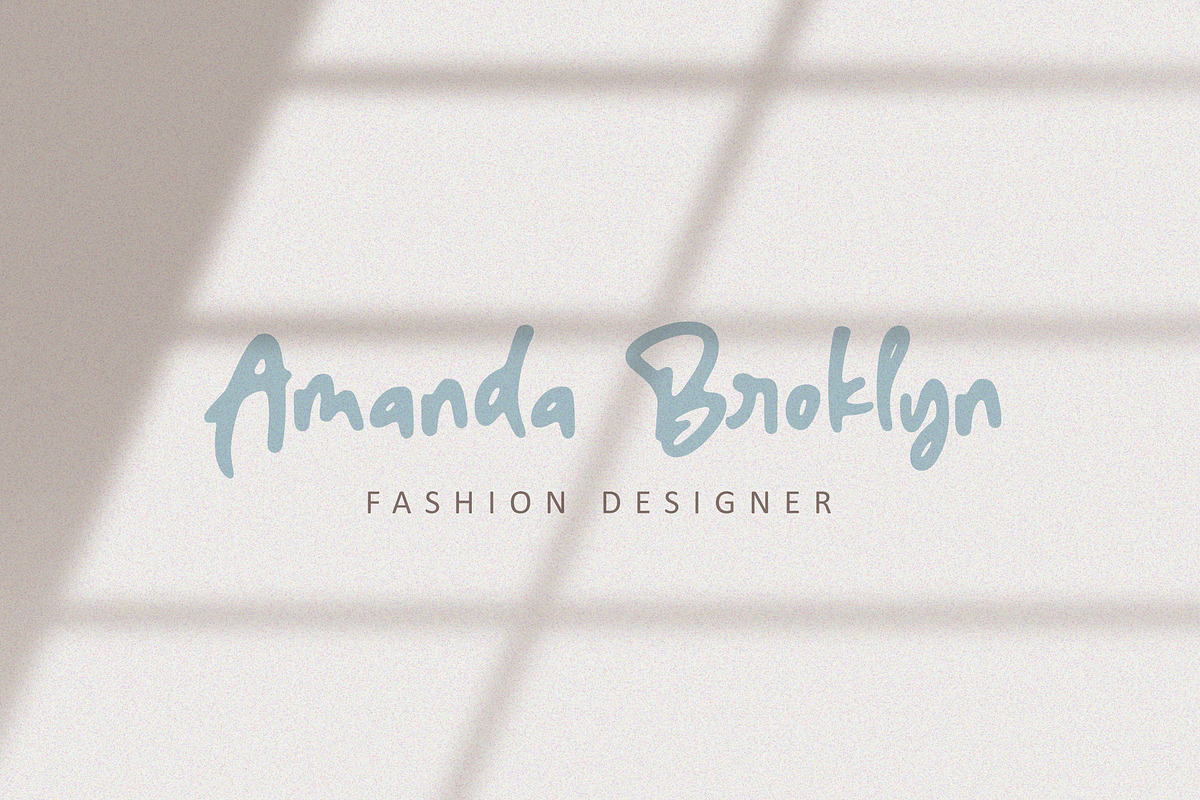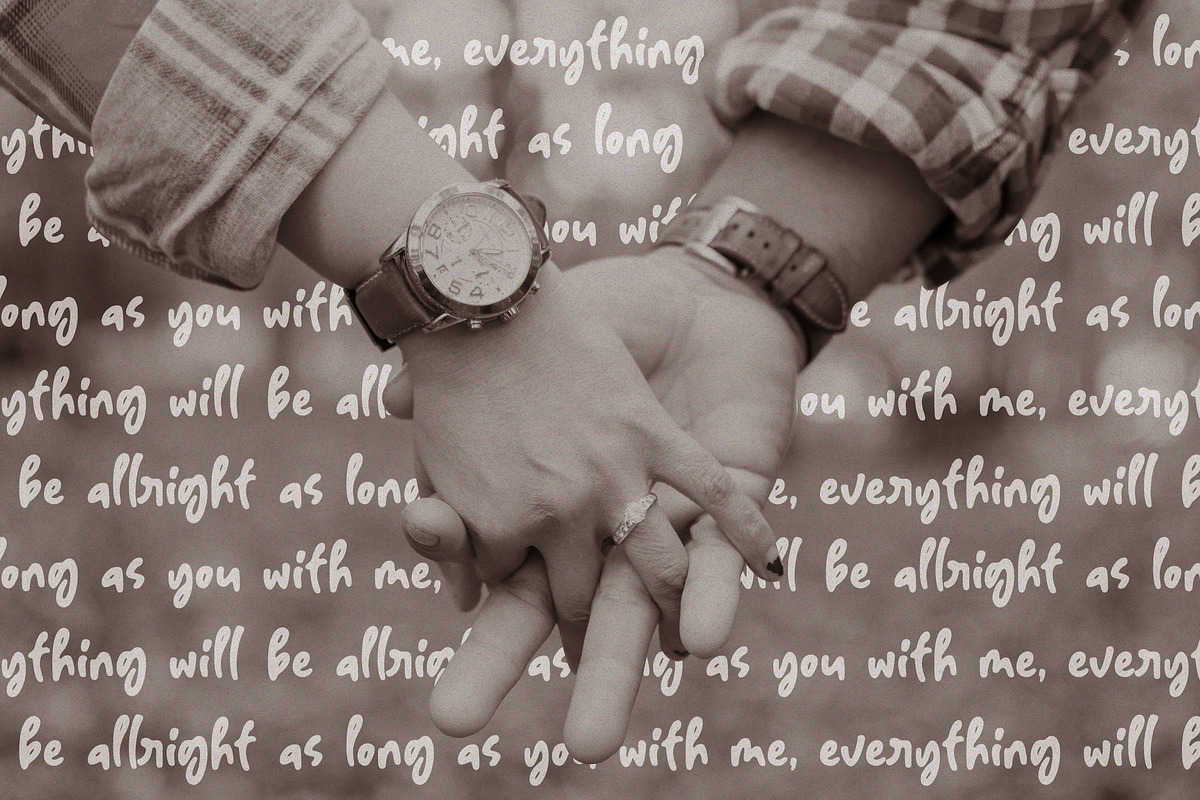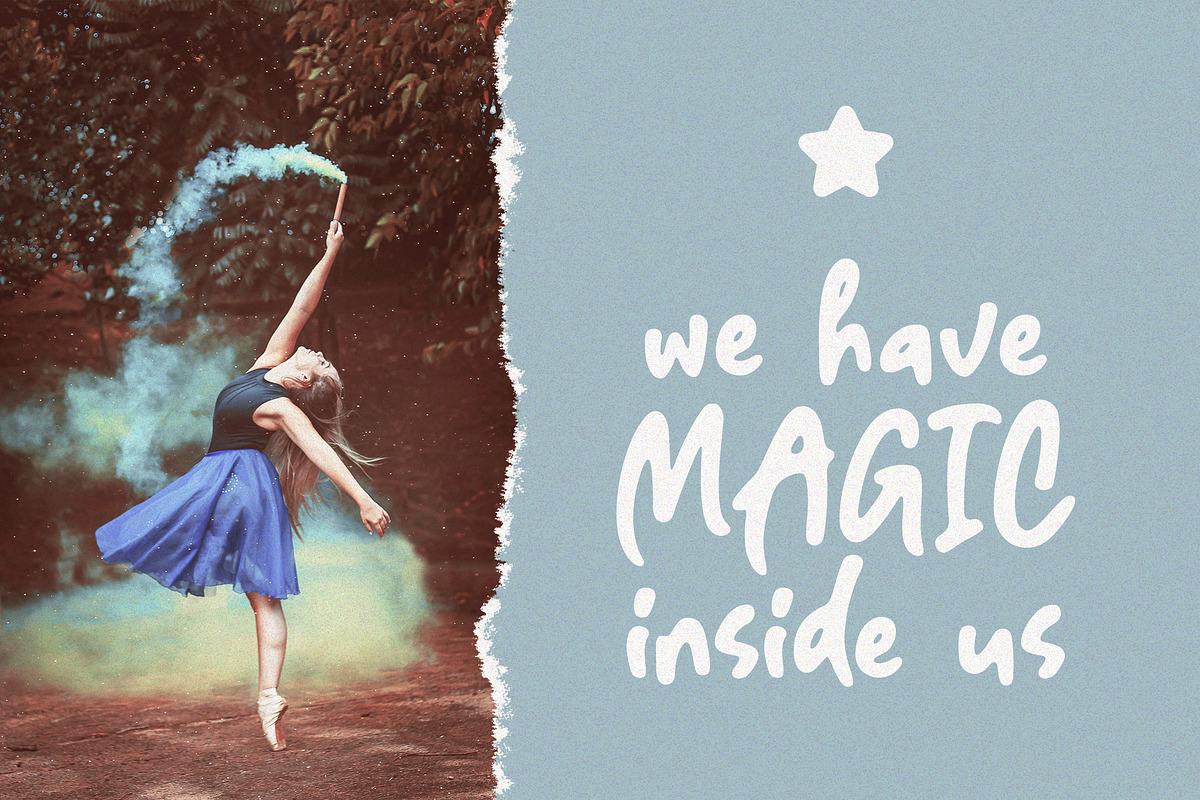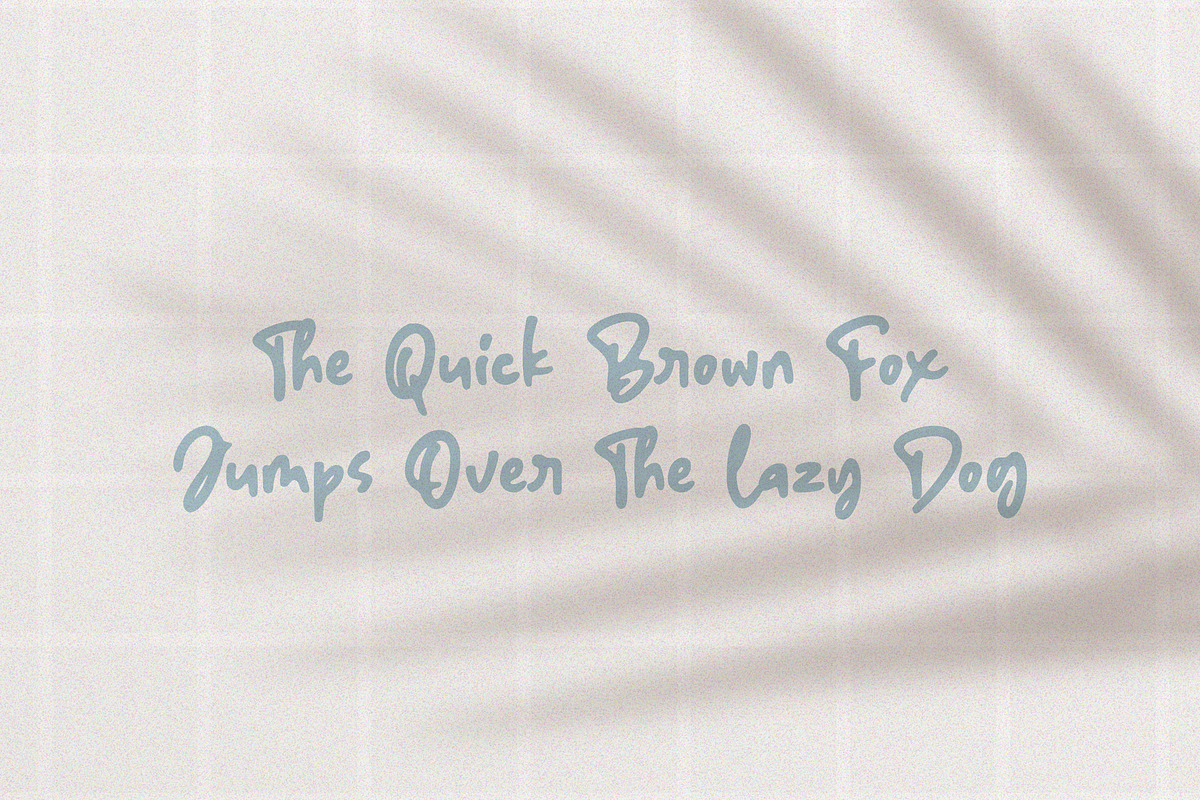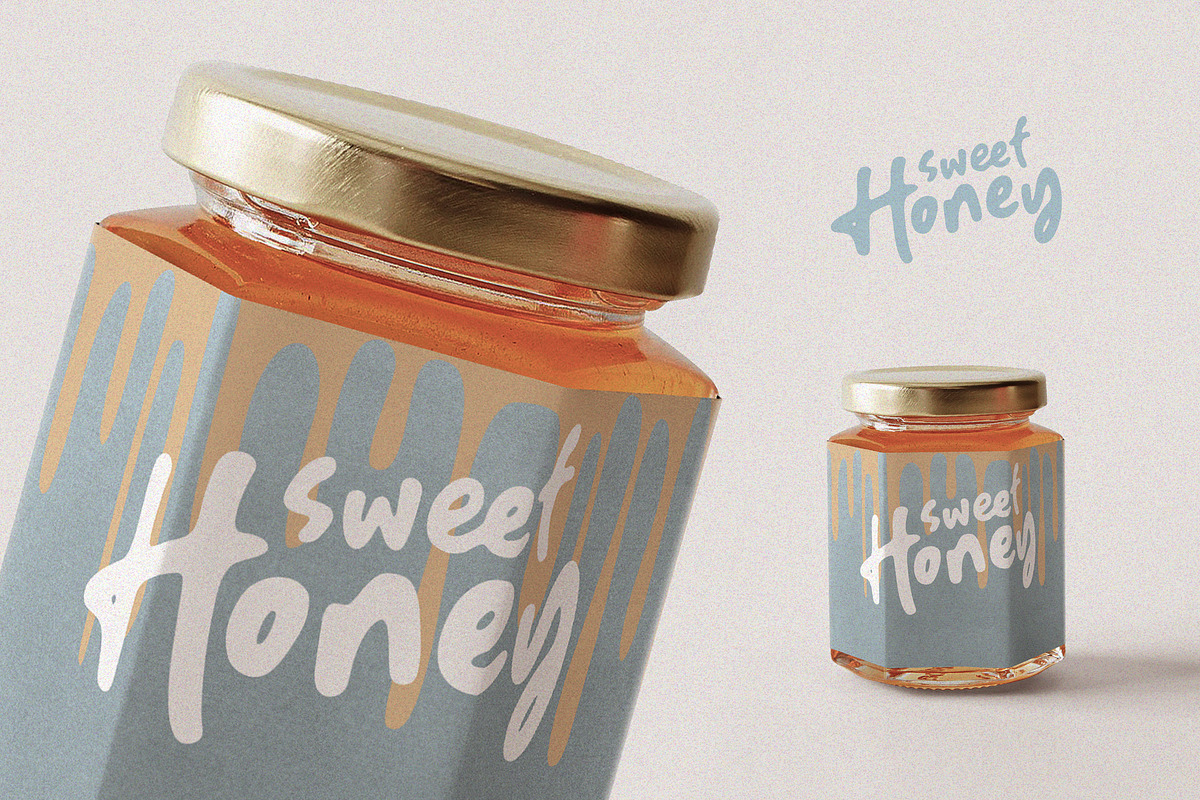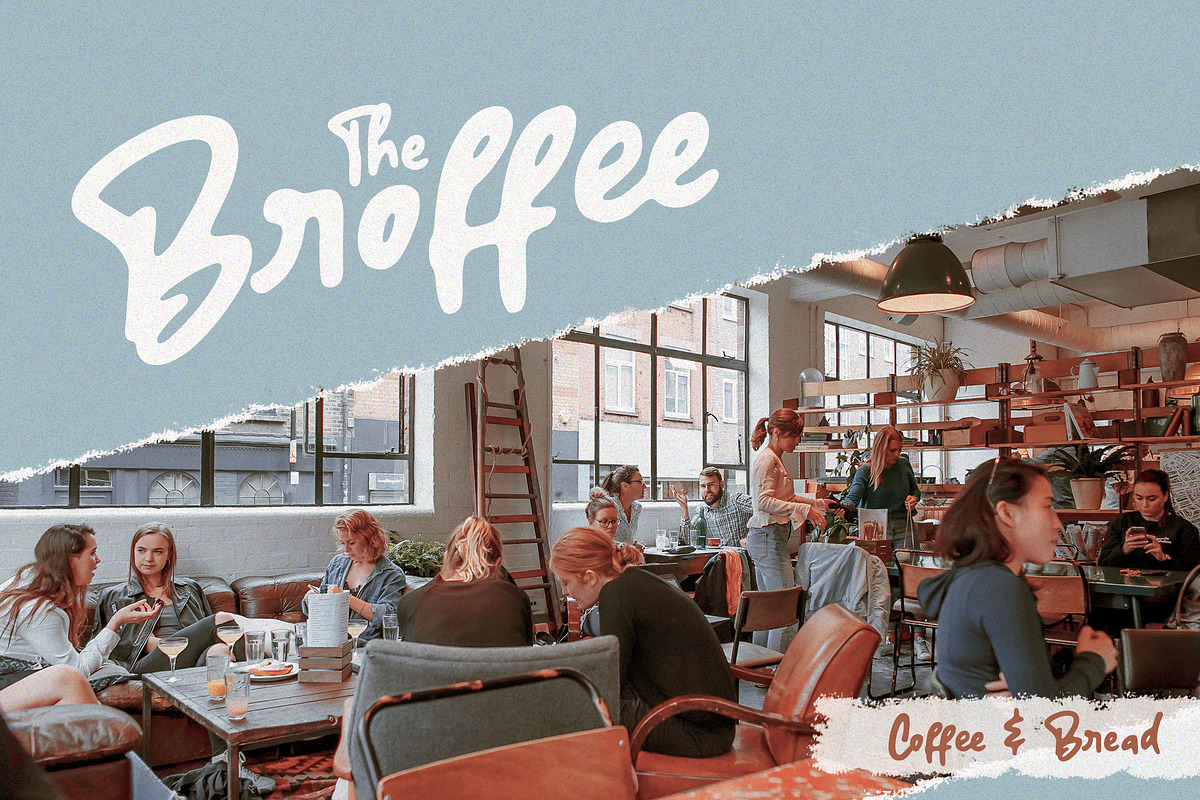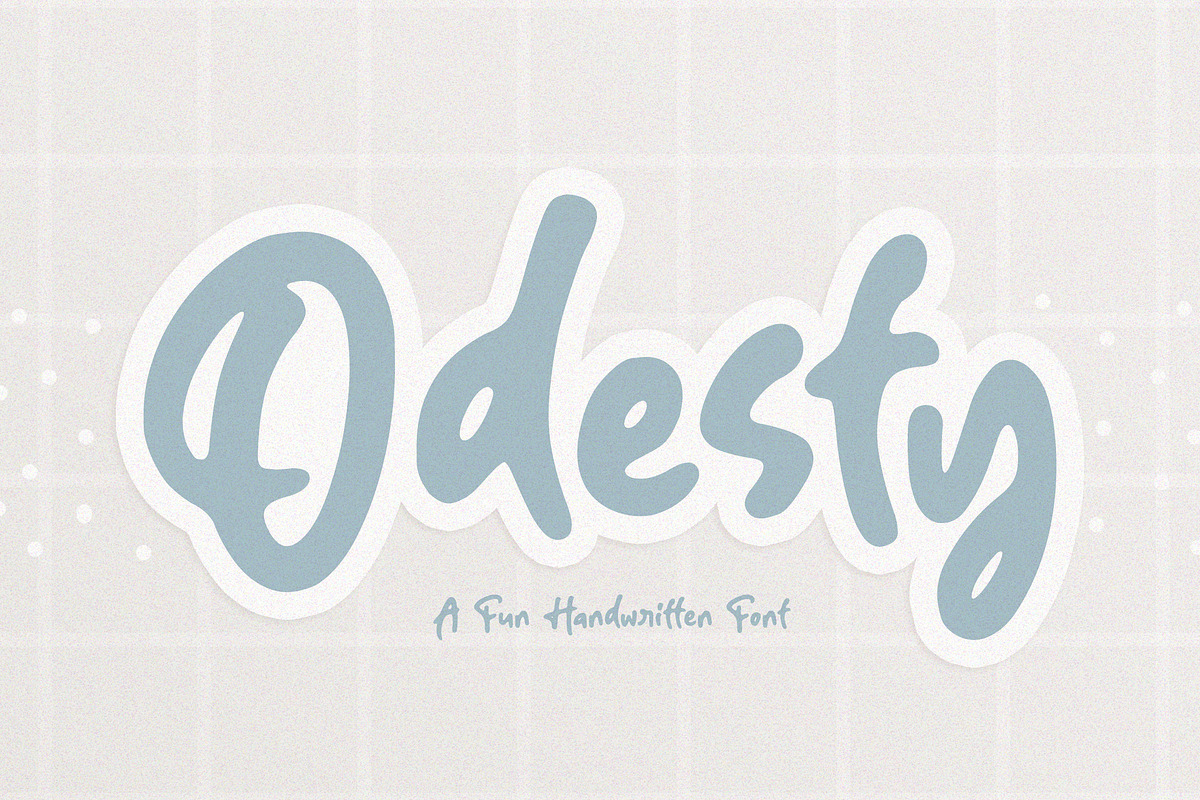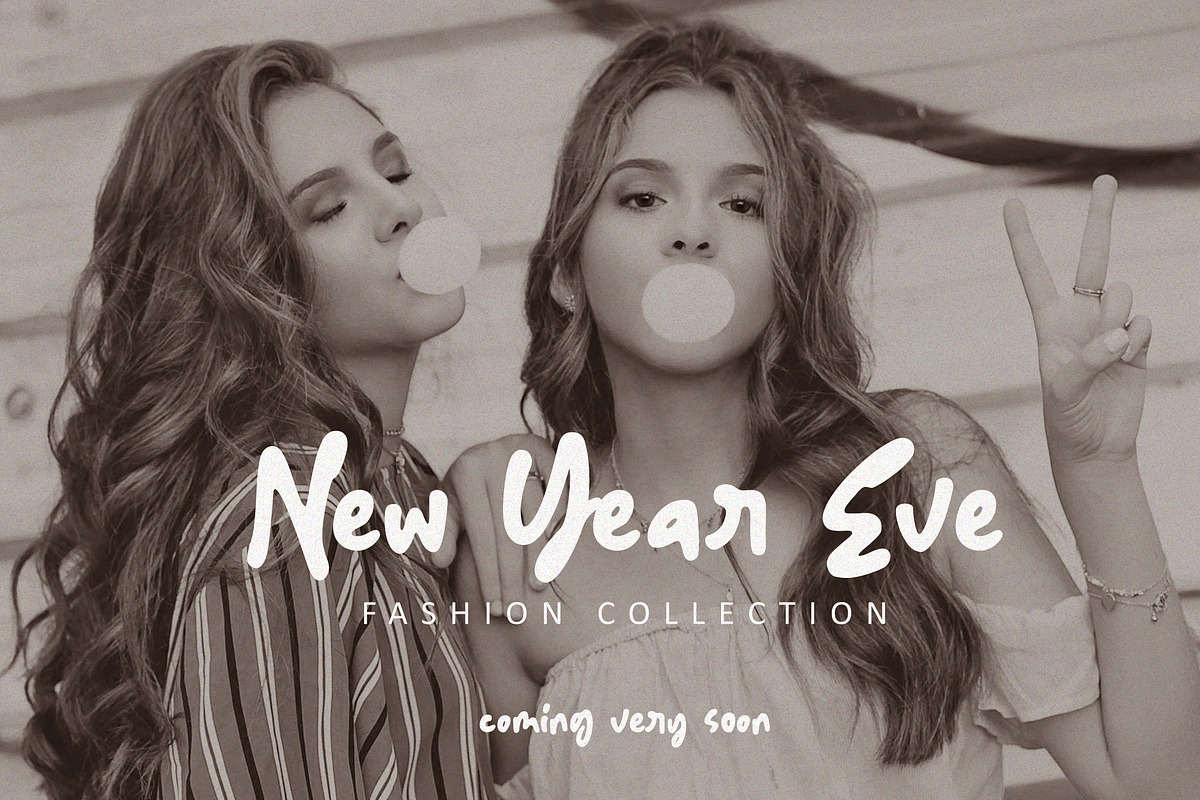
Odesty ~ A Fun Handwritten Font
Because Odesty is fit for any themes of your projects. It's handwritting simply, so it's look natural.
Uppercase (A-Z) and Lowercase (a-z)
Numerial & Punctuation, and other standard characters
Ligatures: standard + Cr & Lr
Odesty ~ A Fun Handwritten Font by Orenari fits naturally into Branding, posters, packaging, typography.